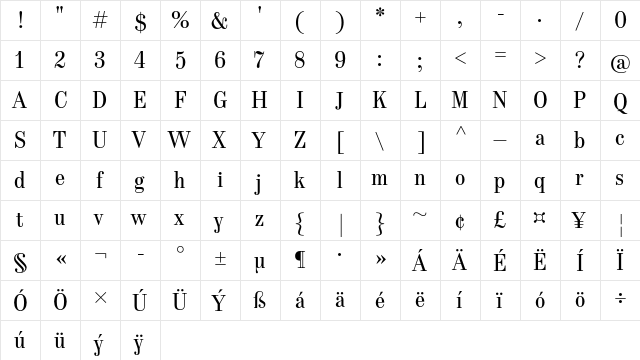
Heneczek Regular
| Designer | D. Langosz |
Design Context for Heneczek Typeface
Heneczek is a composed and adaptable typeface that performs quietly and consistently across a wide range of design contexts.